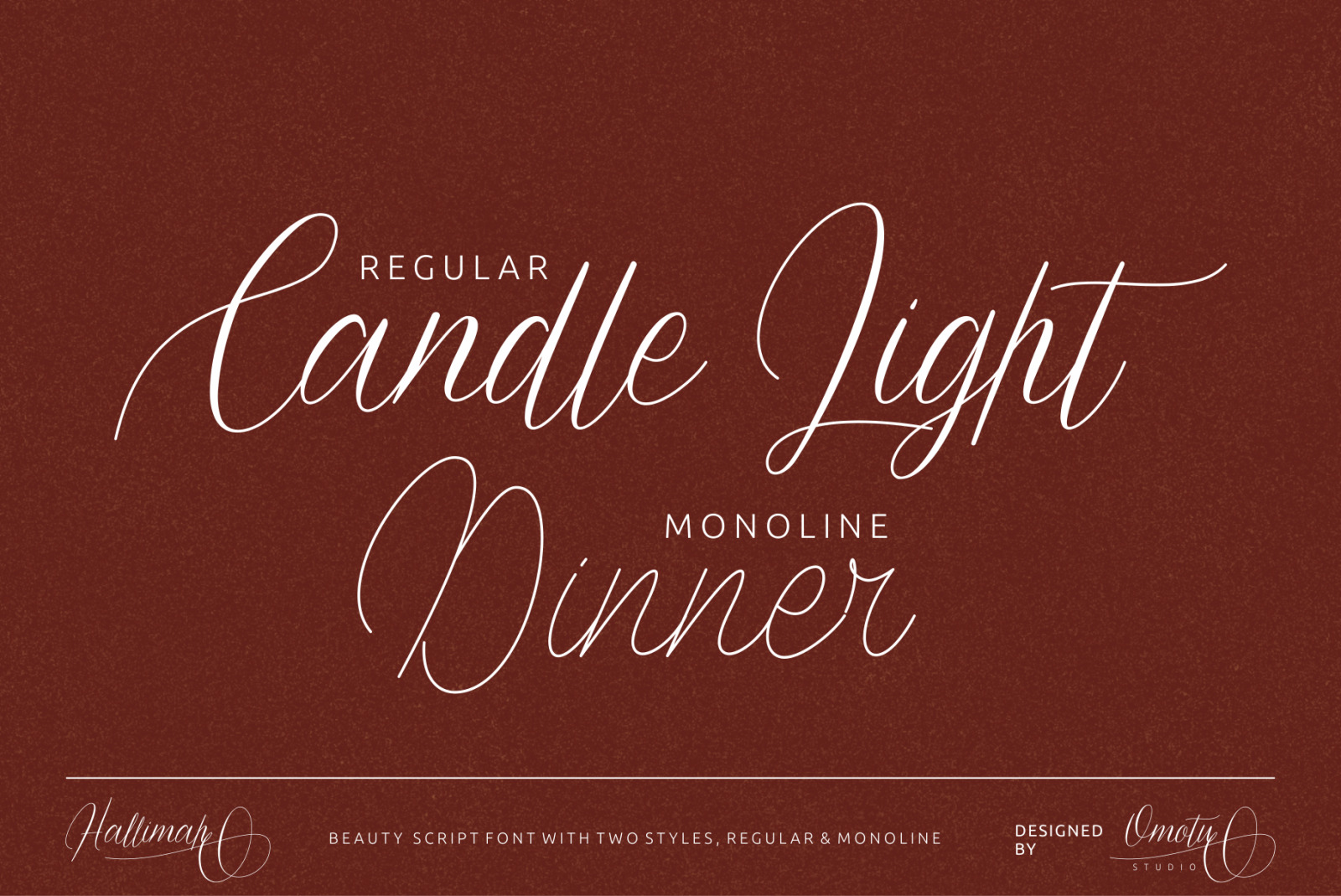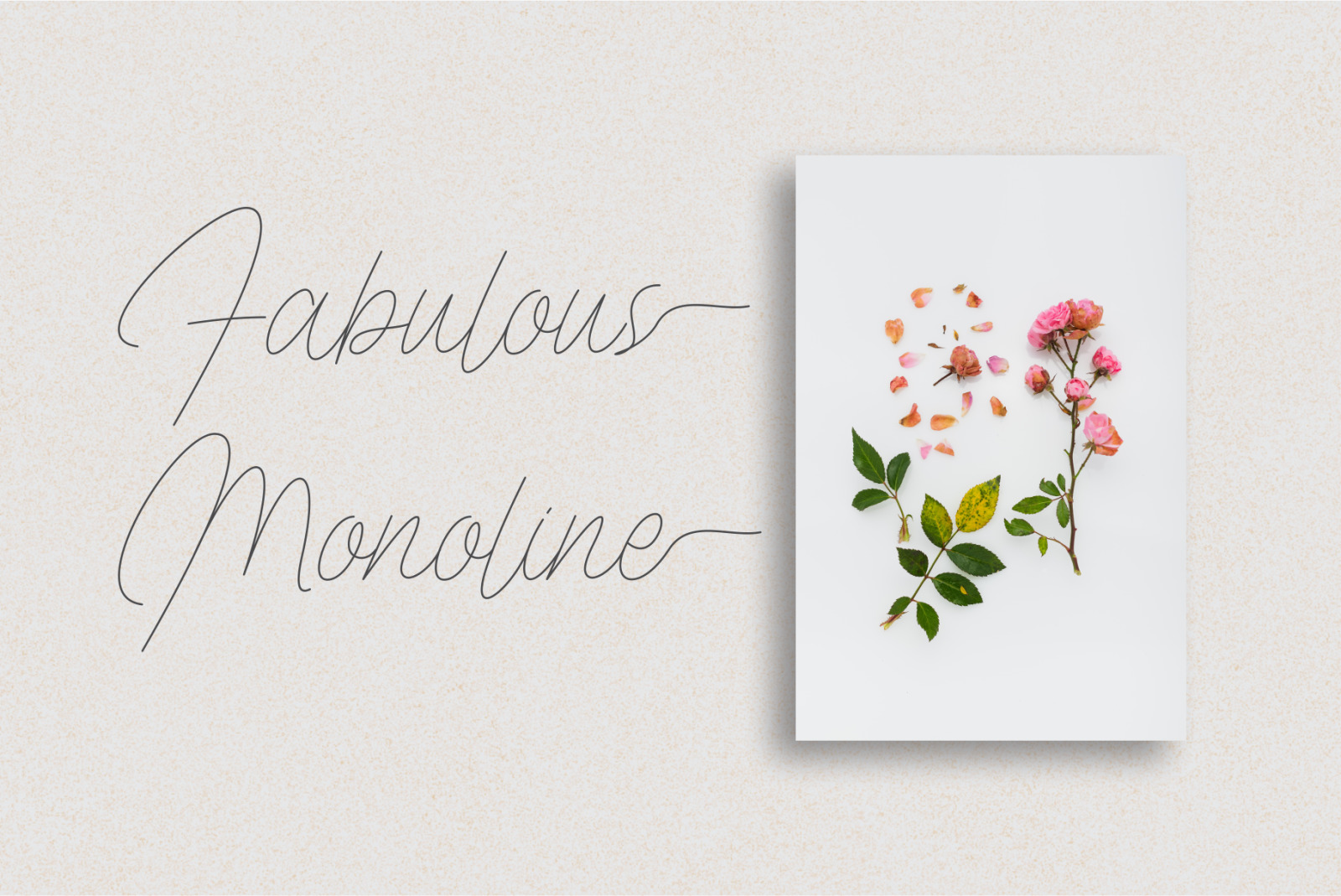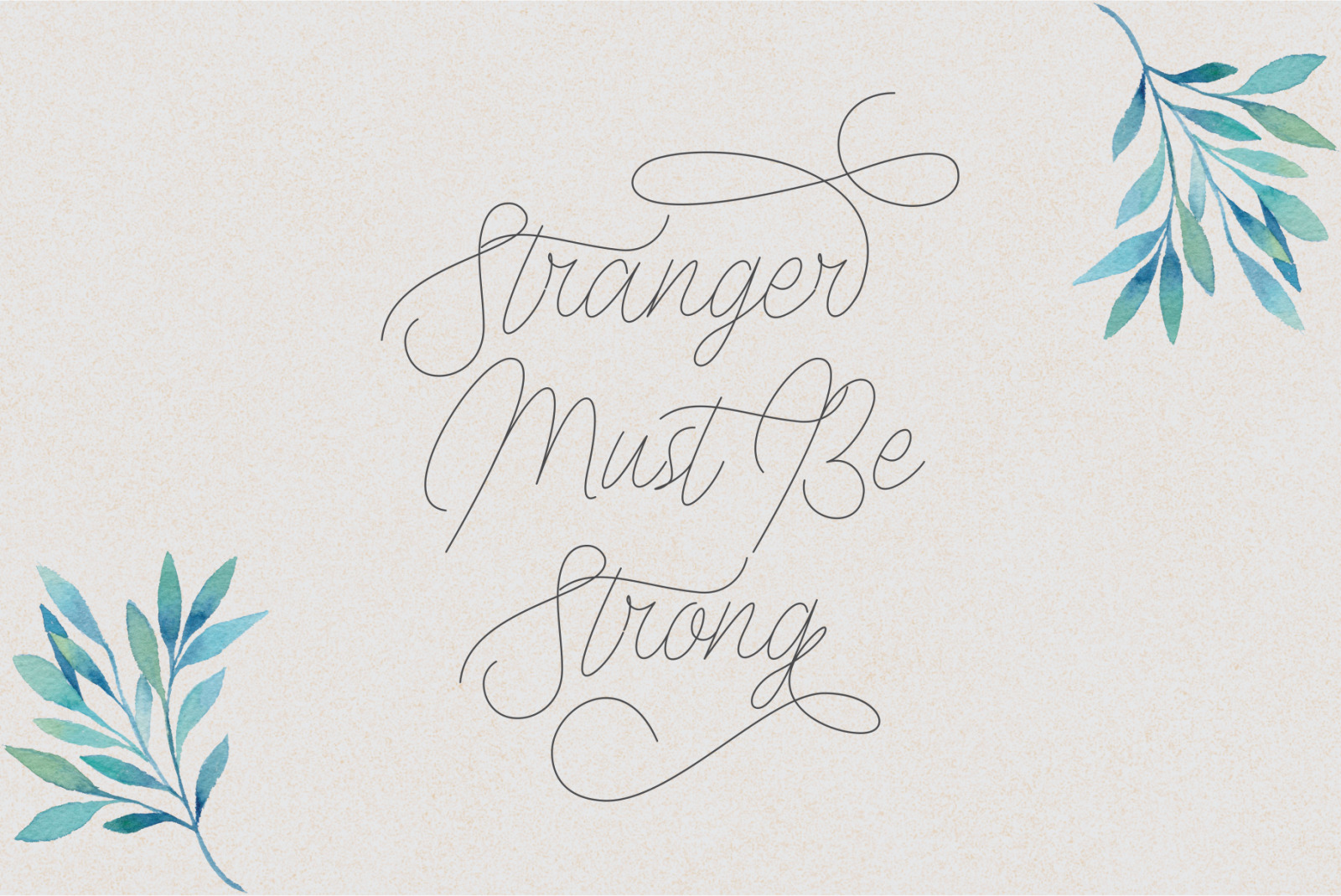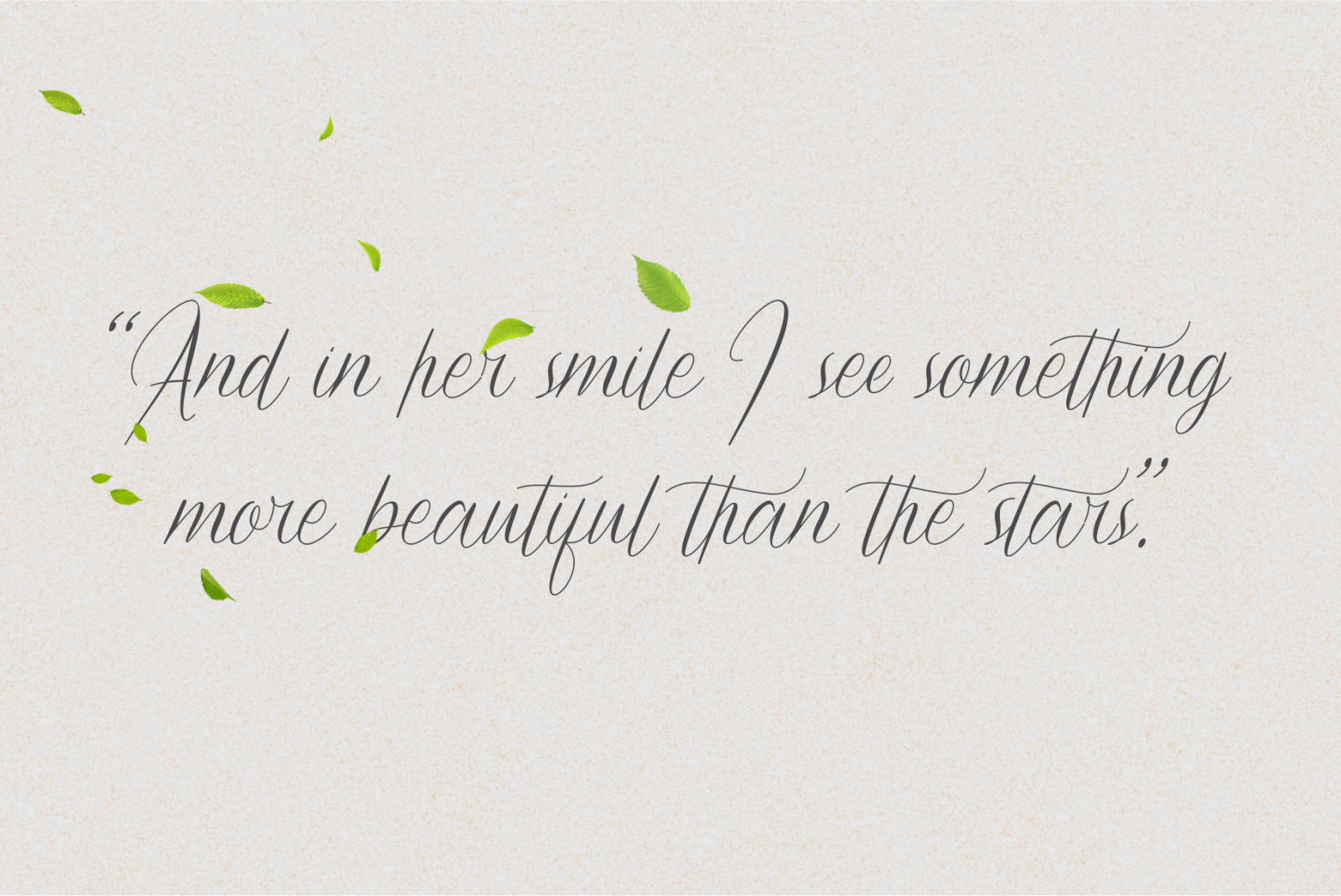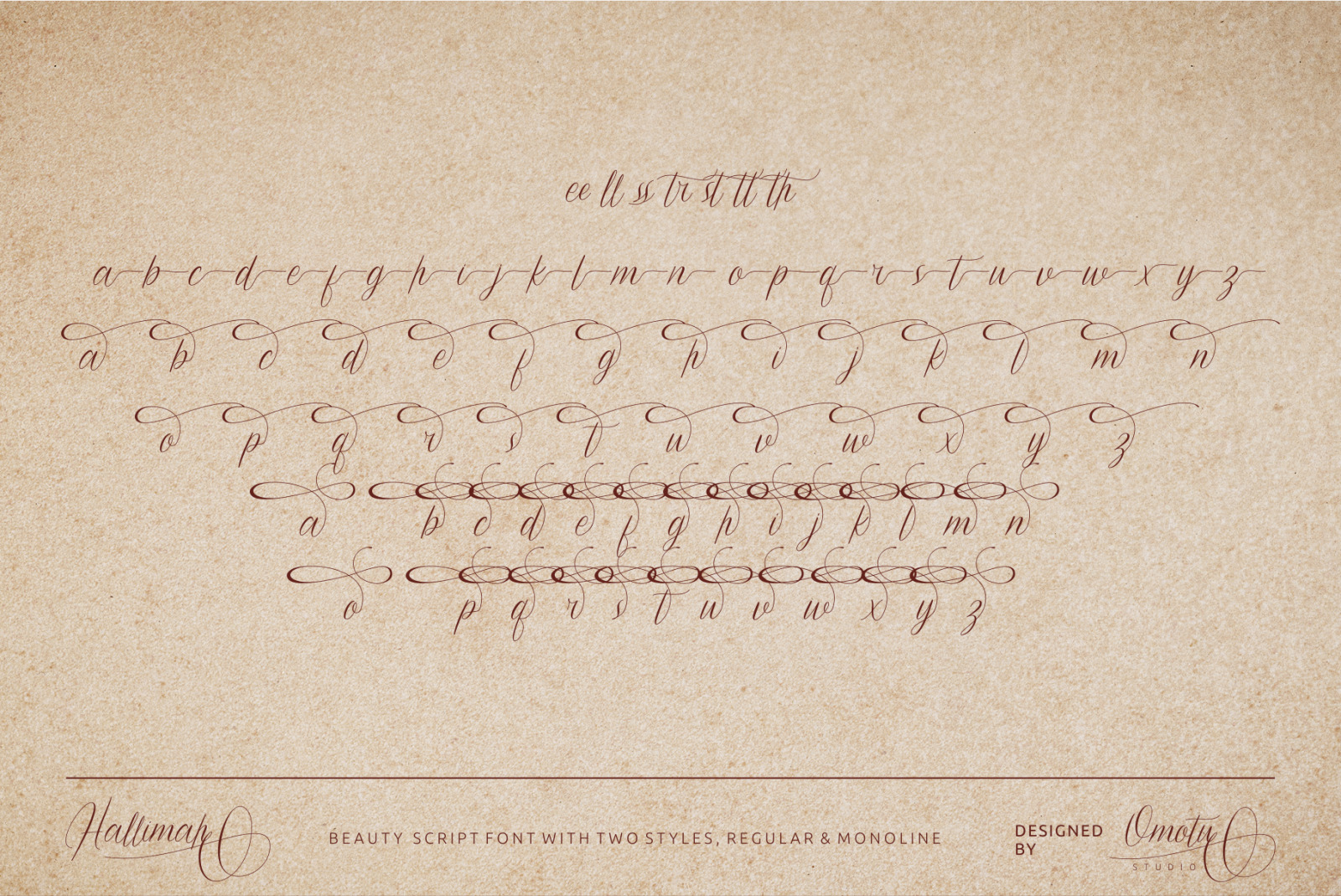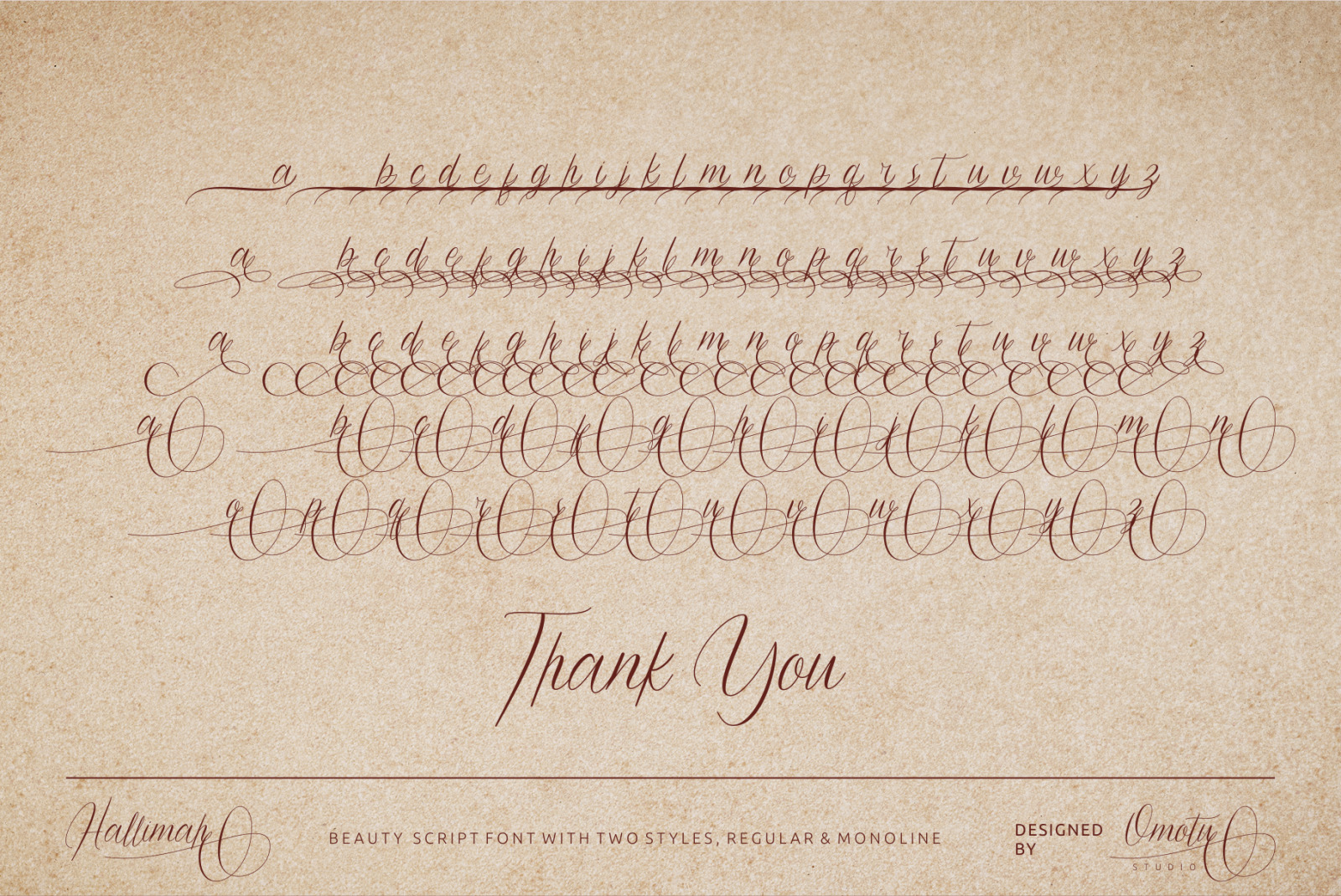
Hallimah Script Font
Hallimah! A script font with 2 styles, regular and monoline. Hallimah font is perfect for branding, product packaging, quotes, flyer, poster.
1. Uppercase and lowercase characters
2. Supports international languages
3. Numerals, punctuations, ligatures, 7 style of stylistic sets
6. Multilingual support.